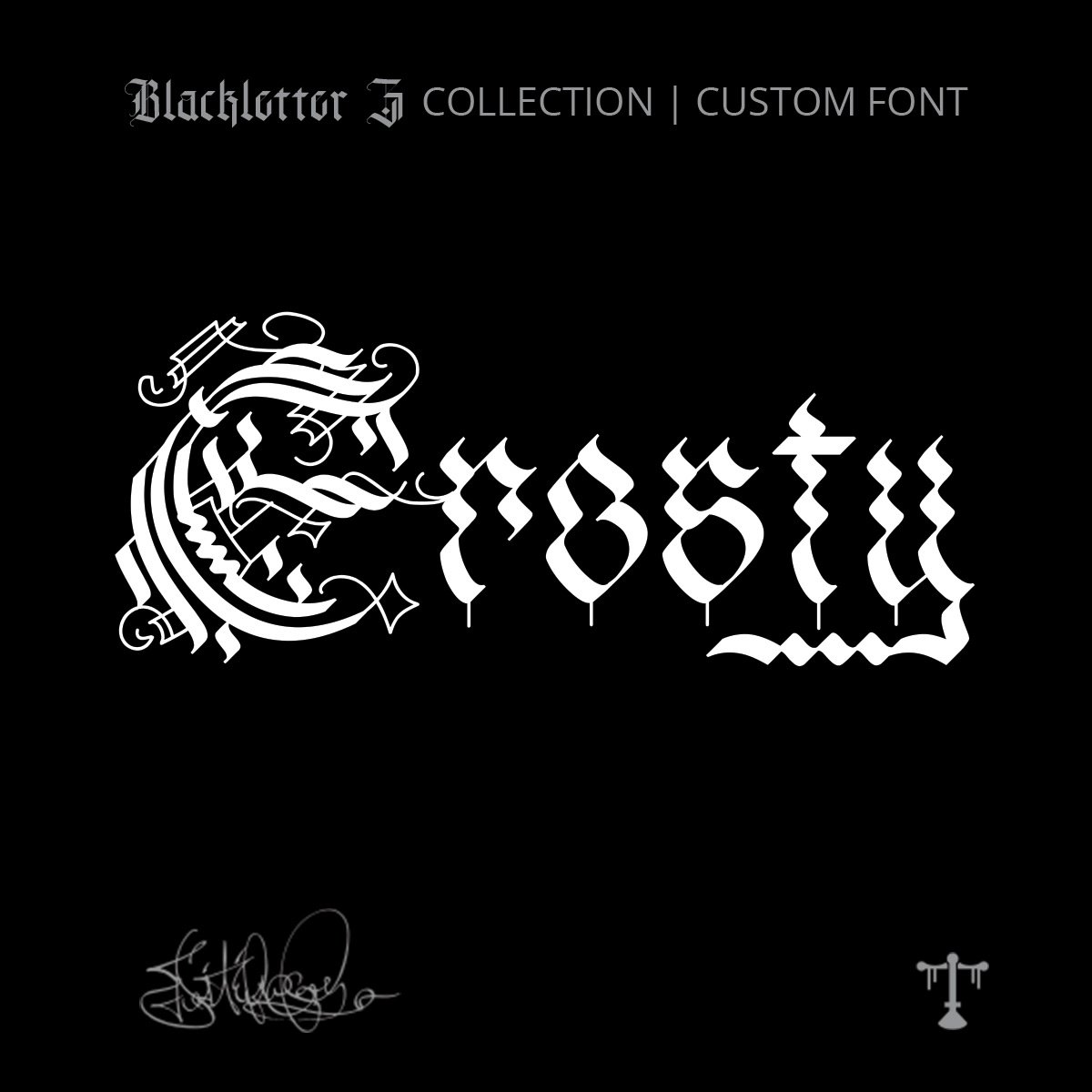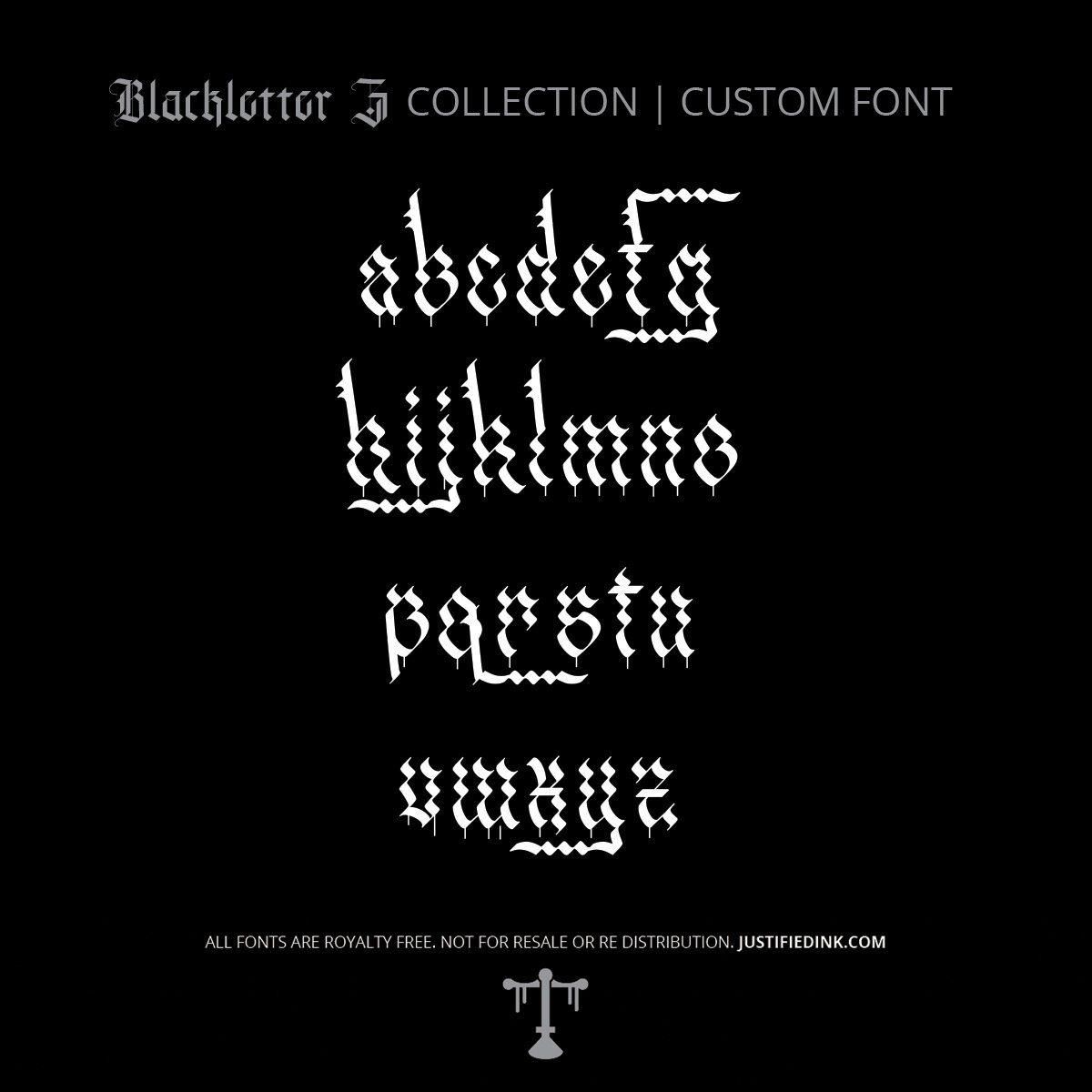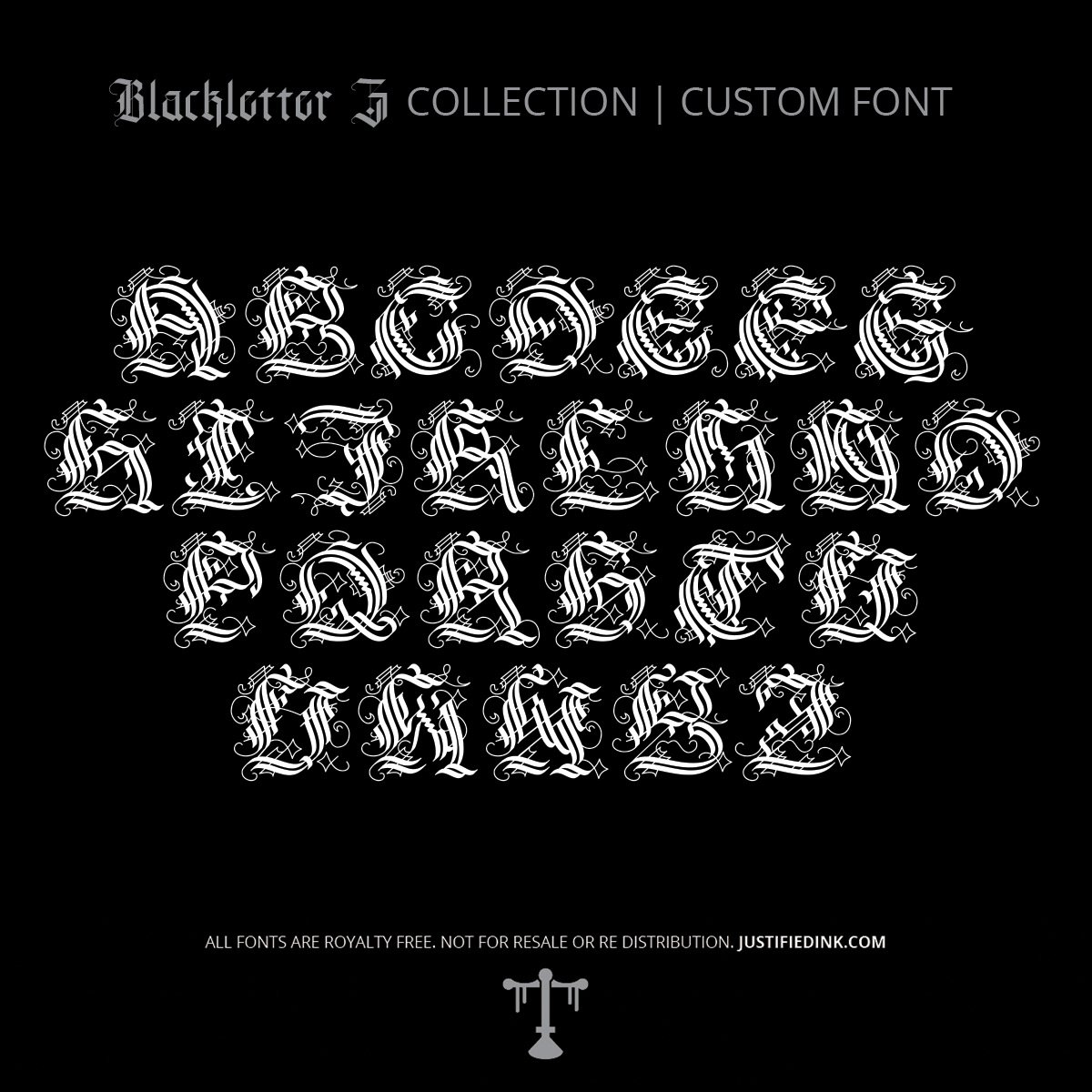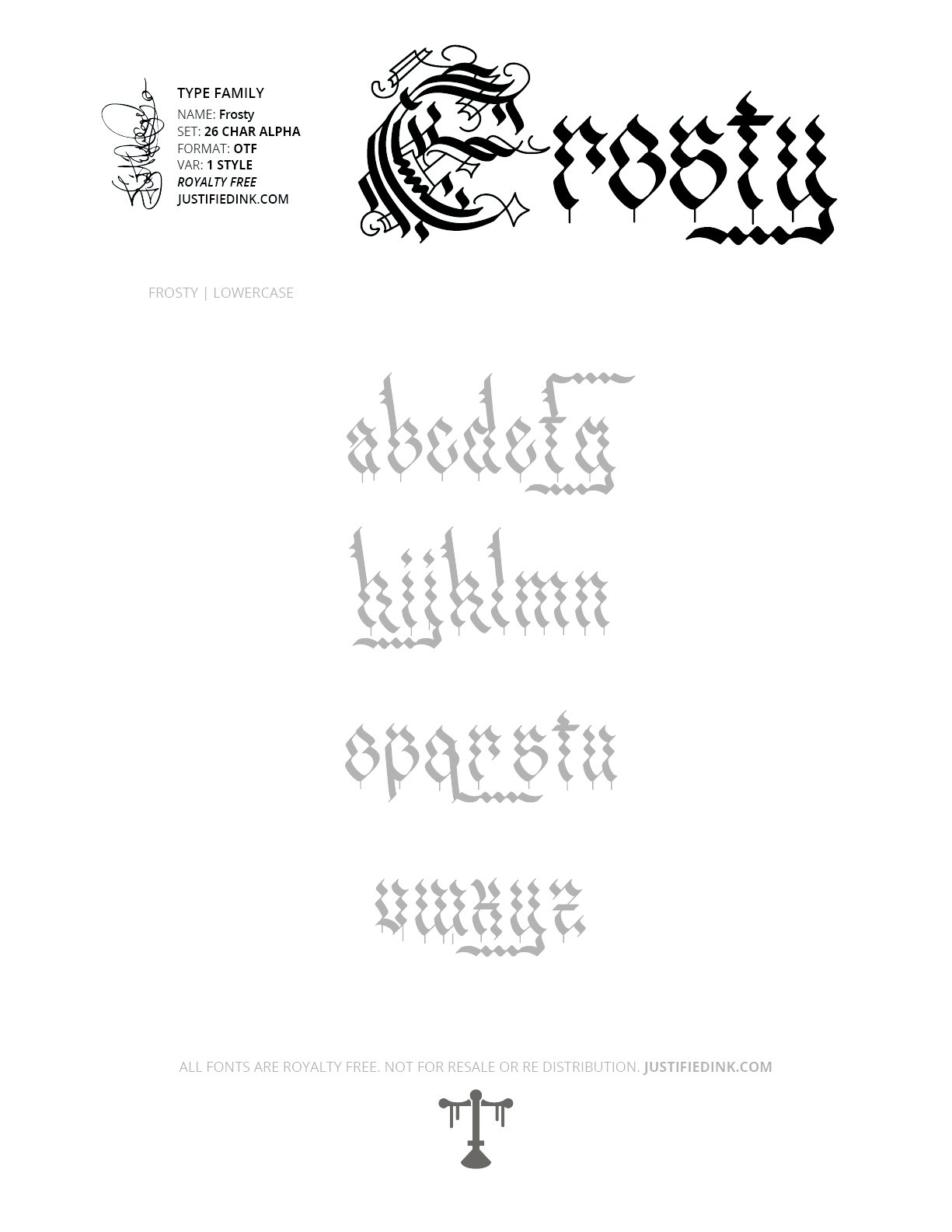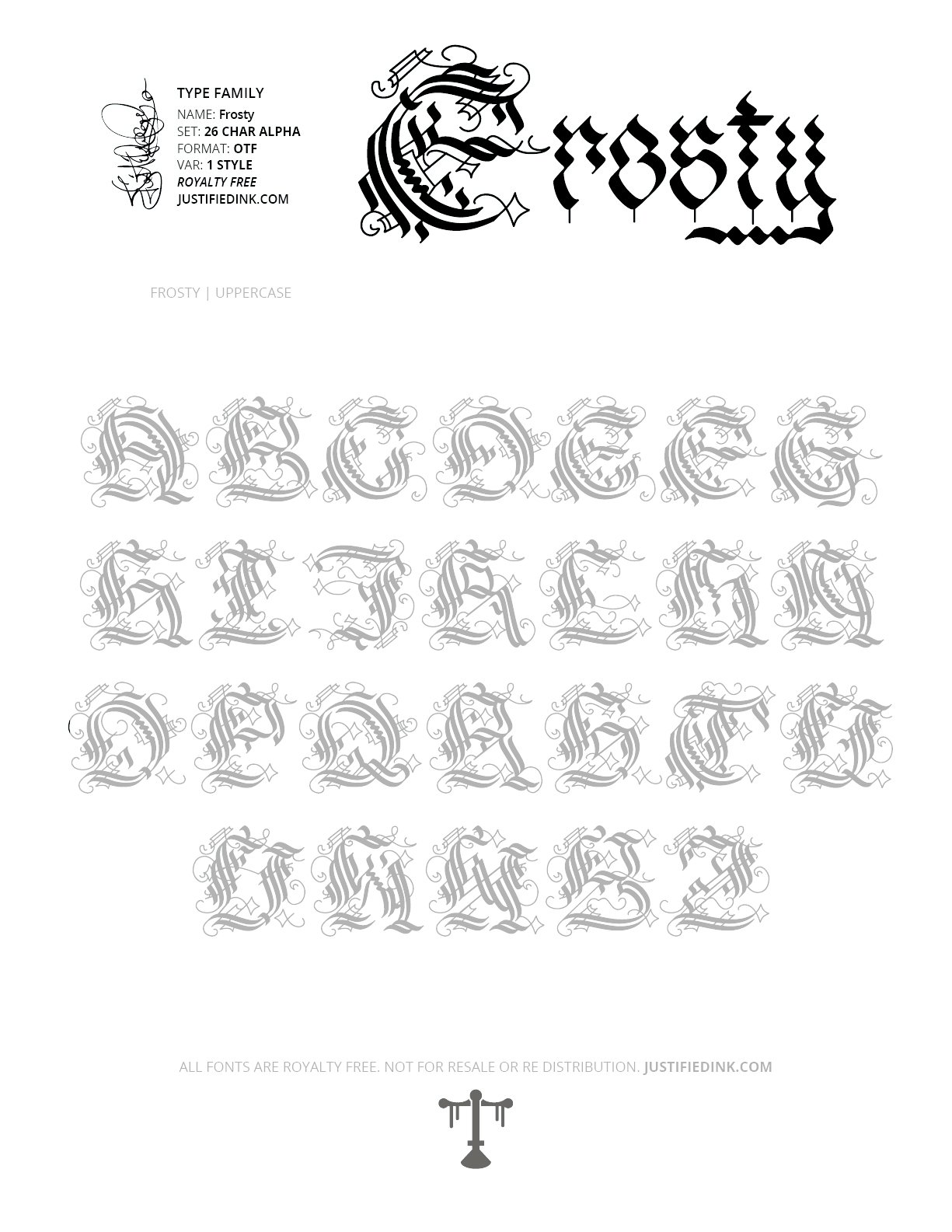
Frosty (1 style) - Custom Font
Frosty (1 Style) - Custom Font
Where Winter Creeps Into Every Letter
Frosty is a gothic display font shaped by the quiet chaos of winter. Rather than relying on solid, rigid strokes, each uppercase letter is constructed from clusters of smaller marks that gather together like windblown snow, forming bold blackletter shapes with surprising depth and movement. Delicate flourishes branch outward like frost spreading across glass, giving every character the feeling of freezing in place the moment it's written.
The lowercase alphabet leans even further into the illusion, with uneven strokes, subtle wavering forms, and elongated drips that recall hanging icicles and melting ice. The result is a blackletter style that feels alive—organic, unpredictable, and beautifully weathered. Frosty is perfect for winter-inspired branding, fantasy artwork, album covers, apparel, posters, tattoos, seasonal designs, and any project that calls for gothic atmosphere wrapped in frozen elegance.
Frosty Font by Justified Ink has been forged for creators who appreciate atmosphere as much as letterform. Whether you're designing for print, apparel, illustration, tattoos, or digital media, Frosty brings a distinctive winter gothic aesthetic to personal and commercial projects alike.